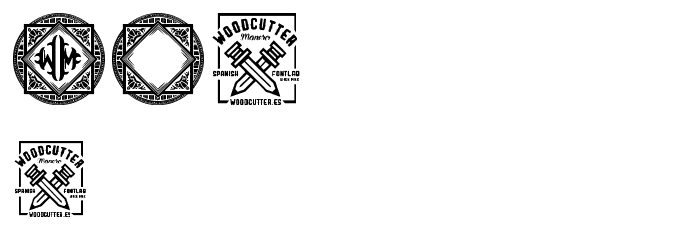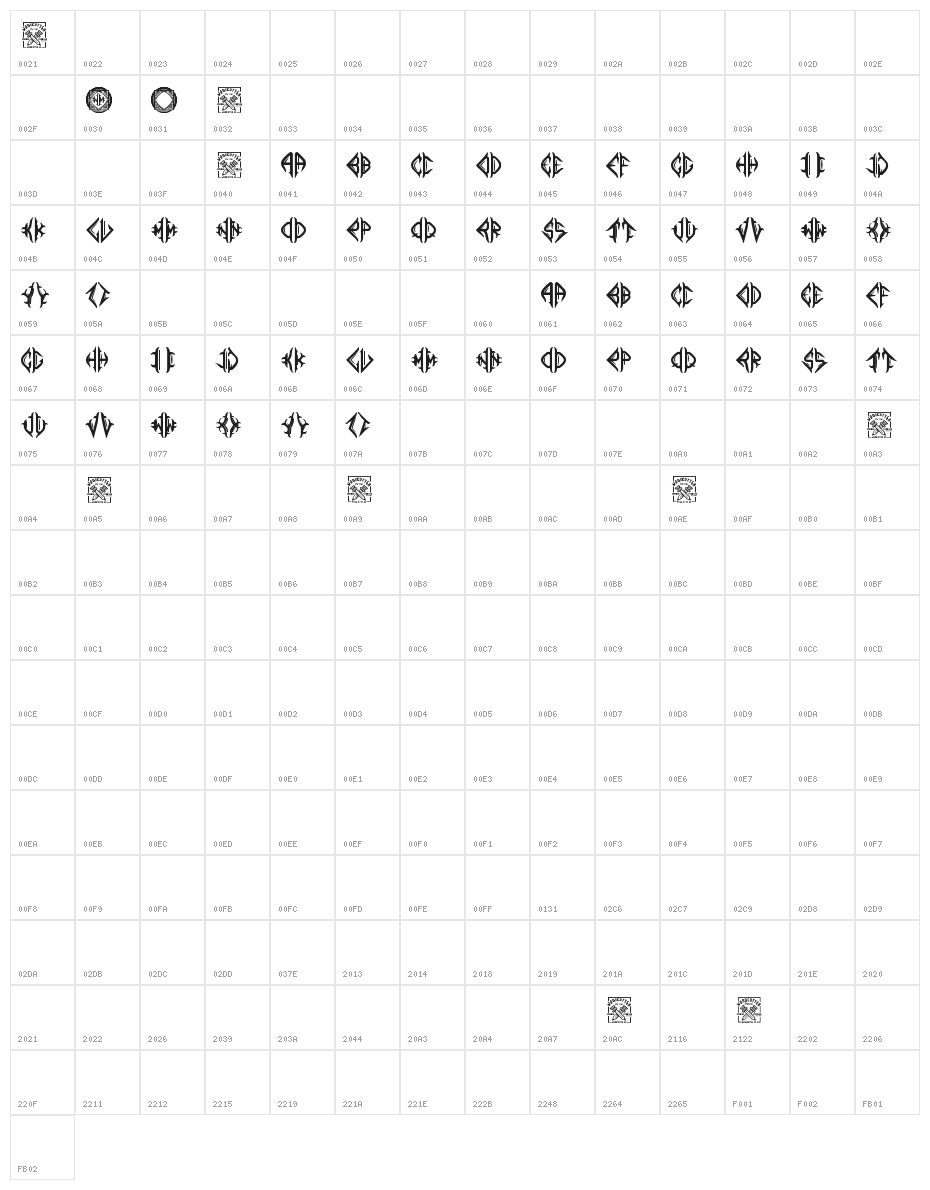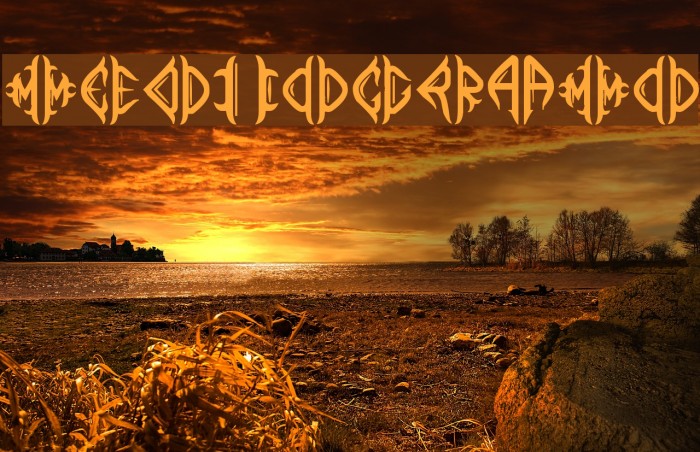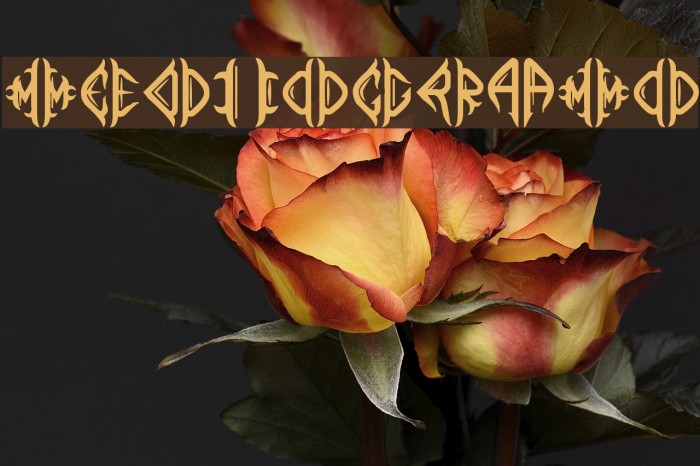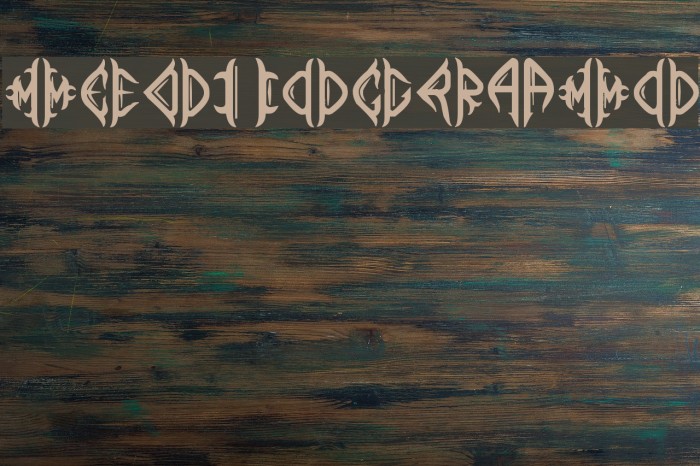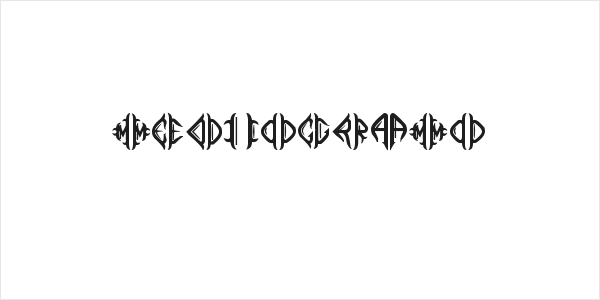
Mediogramo Font
Mediogramo Description
This font features a bold and intricate design, characterized by sharp angles and symmetrical patterns reminiscent of medieval or gothic styles. Each letter is crafted with a high level of detail, incorporating pointed edges and decorative elements that give it a unique and striking appearance. The font's overall aesthetic is both dramatic and artistic, making it stand out in any design context. It is particularly suited for projects that require a strong visual impact, such as logos, posters, or album covers. The font's complexity and ornamental nature suggest a decorative or display category, rather than for body text.
| Overall Style | Gothic, Decorative |
| Use Case | Logos, Posters, Album covers |
| Proposed Projects | Ideal for logos, posters, album covers, and any project needing a dramatic, gothic aesthetic. |